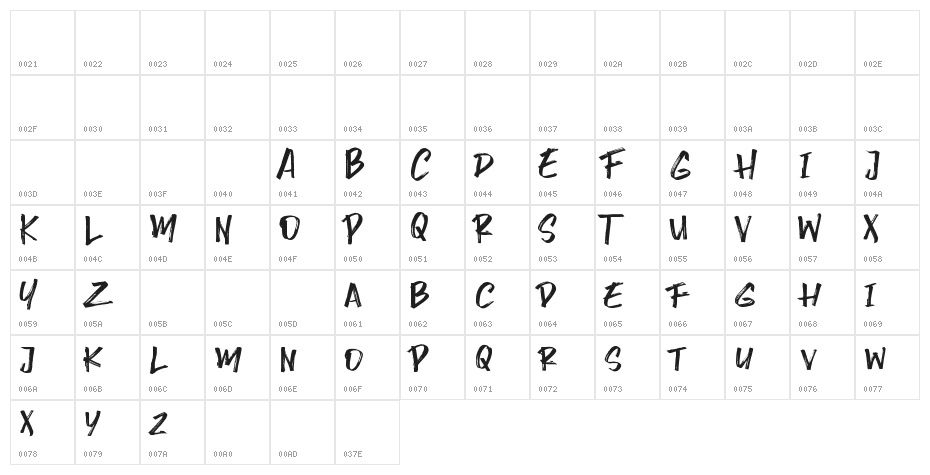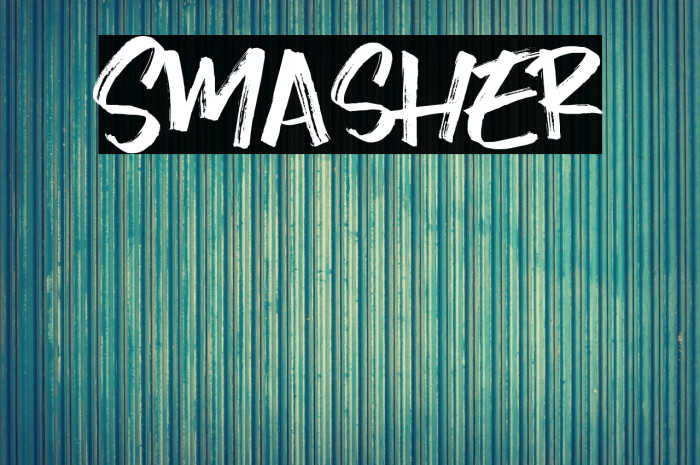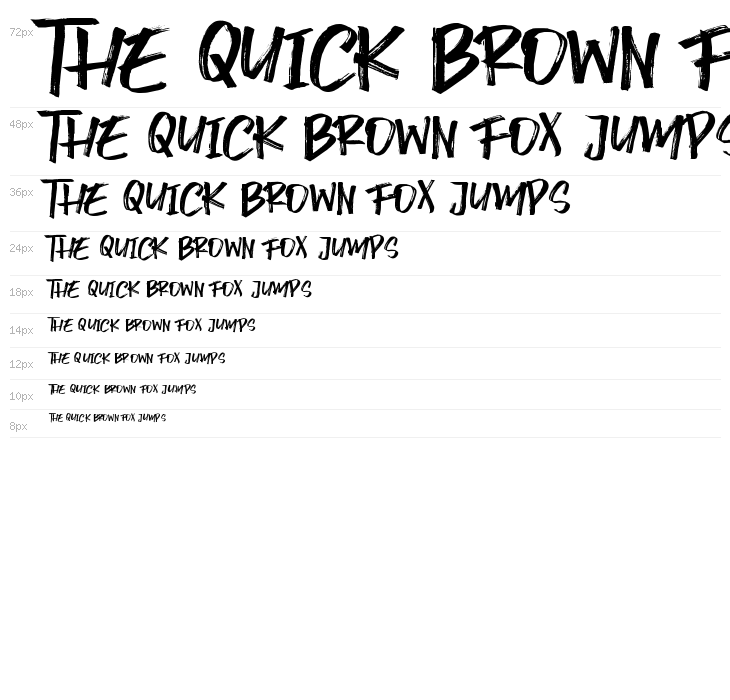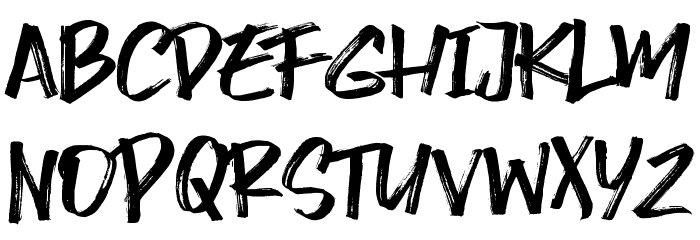
Smasher Font
Smasher Description
This font features a bold and expressive style with a hand-painted appearance. The strokes are thick and dynamic, giving each letter a sense of movement and energy. The edges are rough and irregular, adding to the raw, artistic feel. The uppercase and lowercase letters maintain a consistent style, with a slightly condensed form that enhances readability while preserving the font's unique character. The overall design is striking and impactful, making it ideal for projects that require a strong visual presence.
| Overall Style | Modern, Artistic |
| Proposed Projects | Ideal for posters, album covers, branding, and any project that requires a bold, artistic statement. |